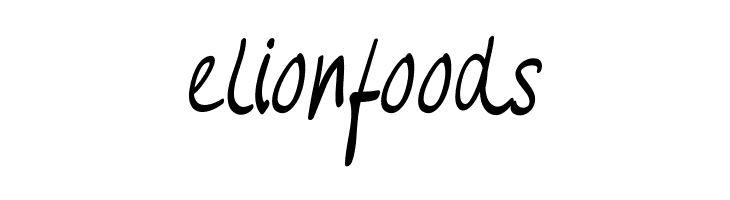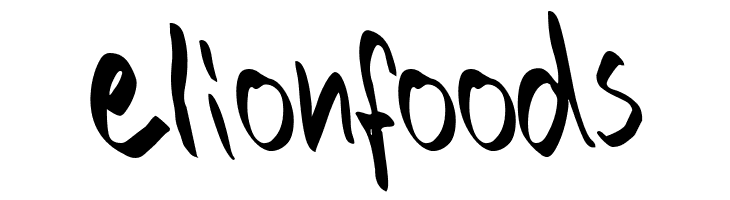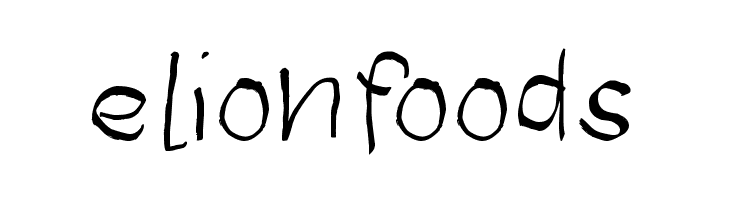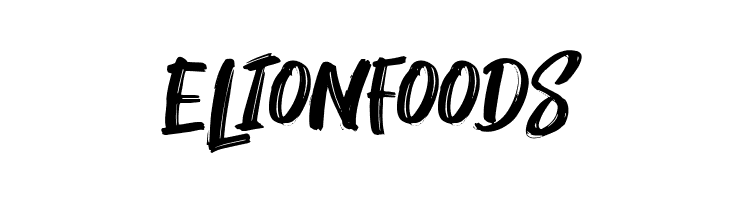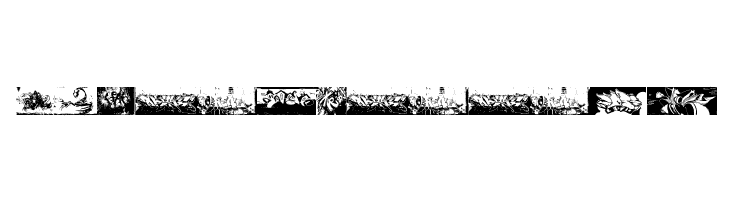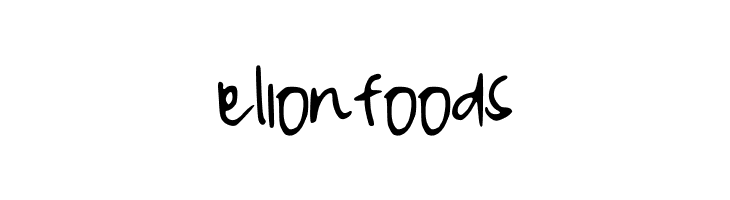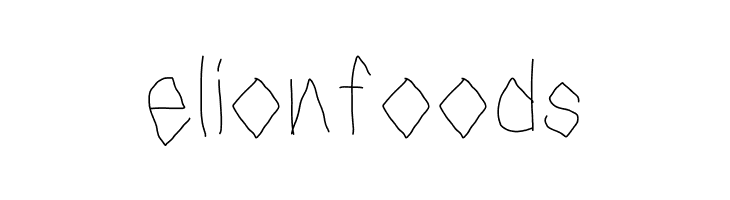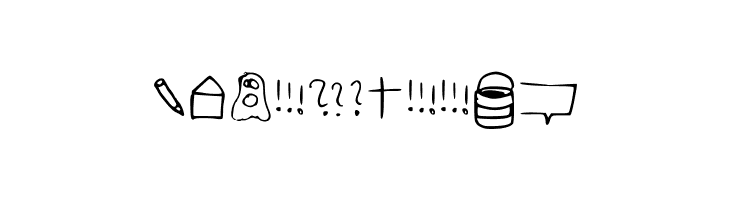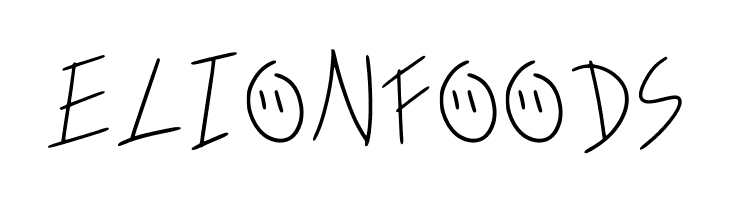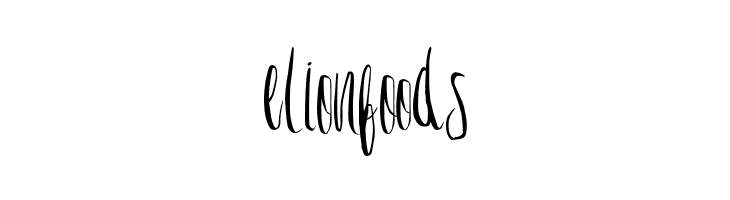
A casual, handwritten font with a lively and dynamic style.
A playful, hand-drawn font with dynamic strokes and an artistic feel.
A playful, handwritten-style font with irregular strokes and spacing.
A bold, expressive brush script font with dynamic strokes and artistic flair.
A bold, graffiti-inspired font with dynamic, expressive strokes and intricate designs.
A playful, handwritten font with a casual and informal style.
A whimsical, hand-drawn font with a playful and irregular style.
A playful and eclectic mix of hand-drawn symbols and doodles with a whimsical style.
A playful, hand-drawn font with a whimsical, scribbled style.
A dynamic, expressive handwritten font with fluid, irregular strokes.